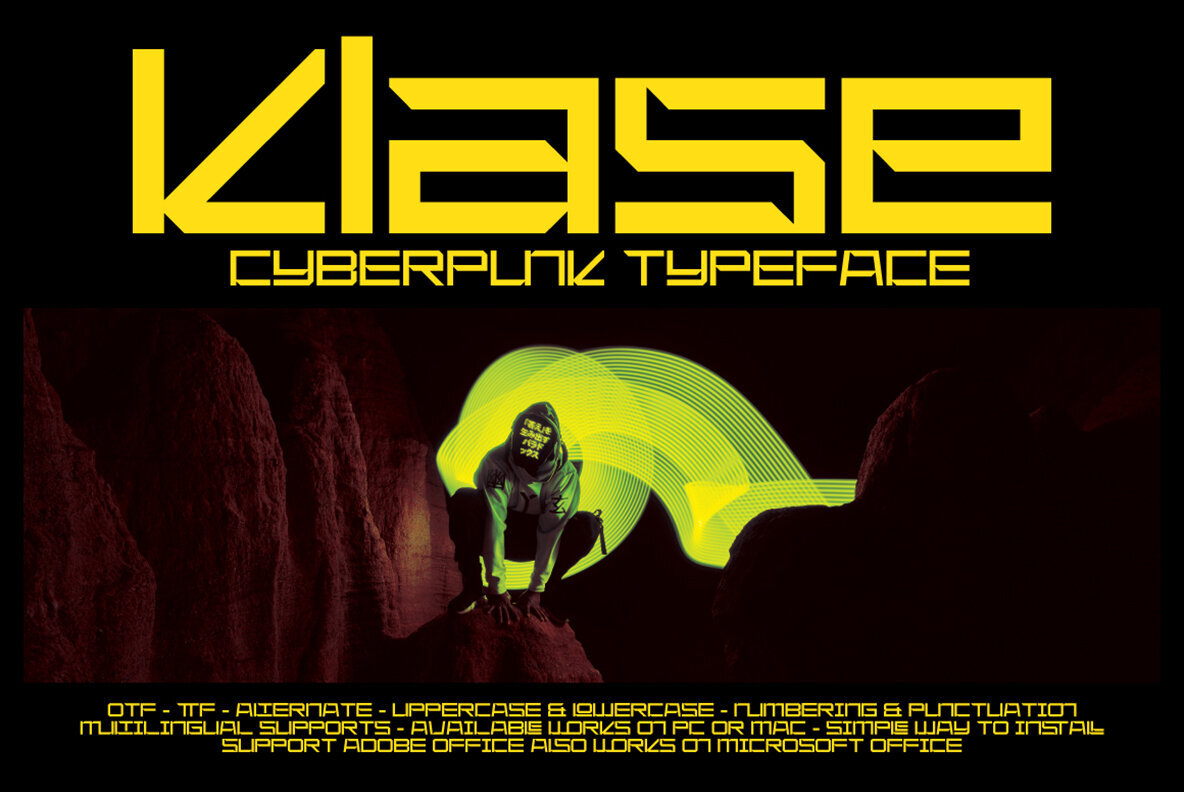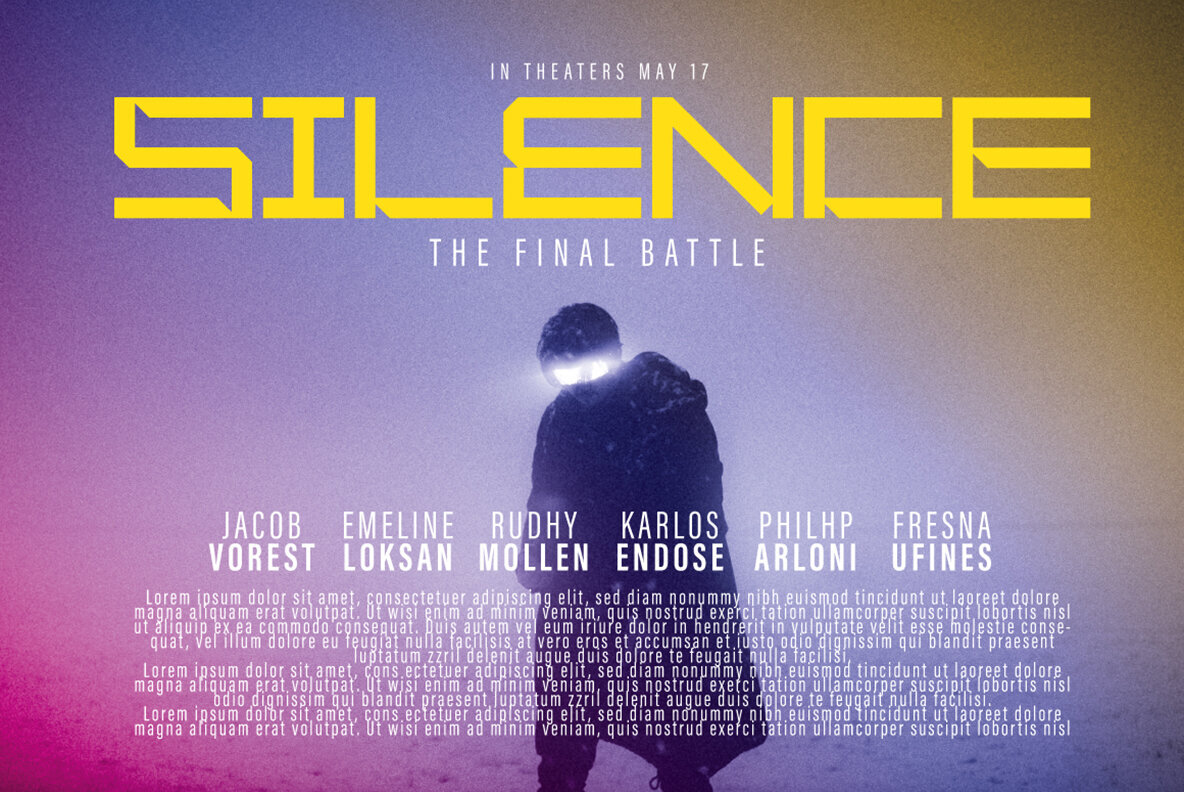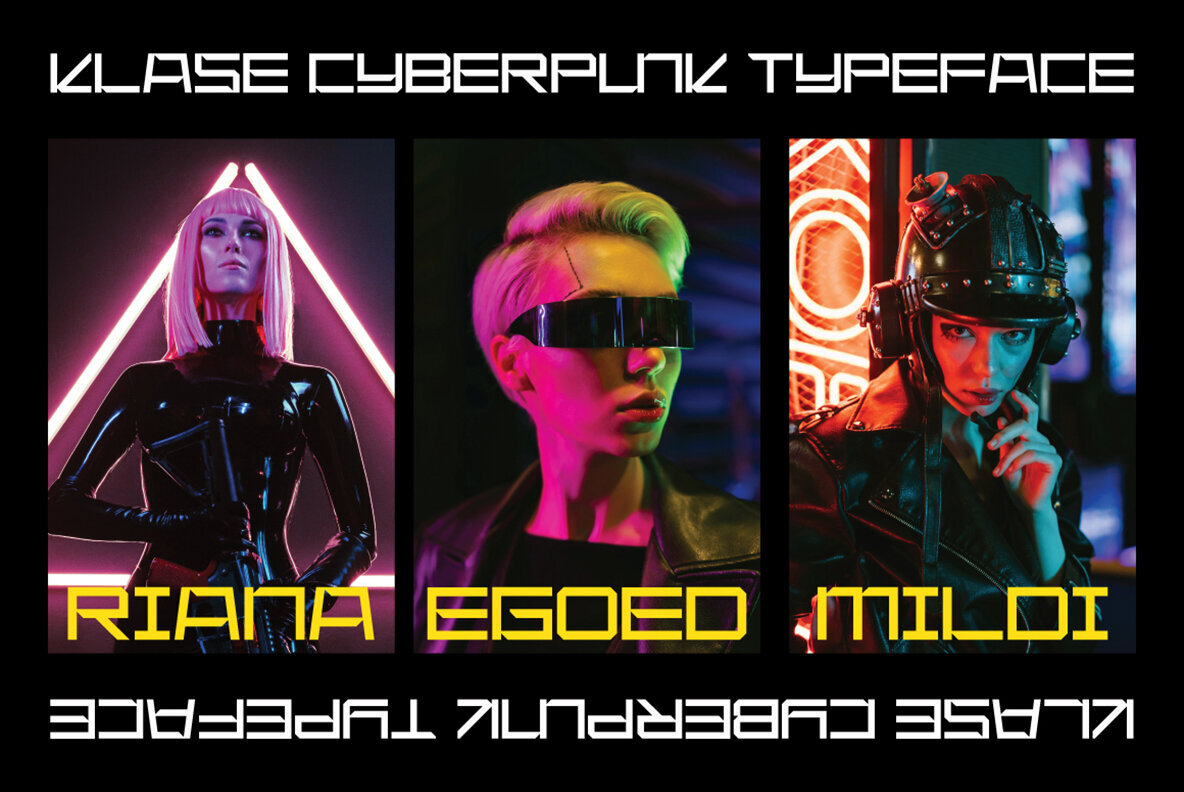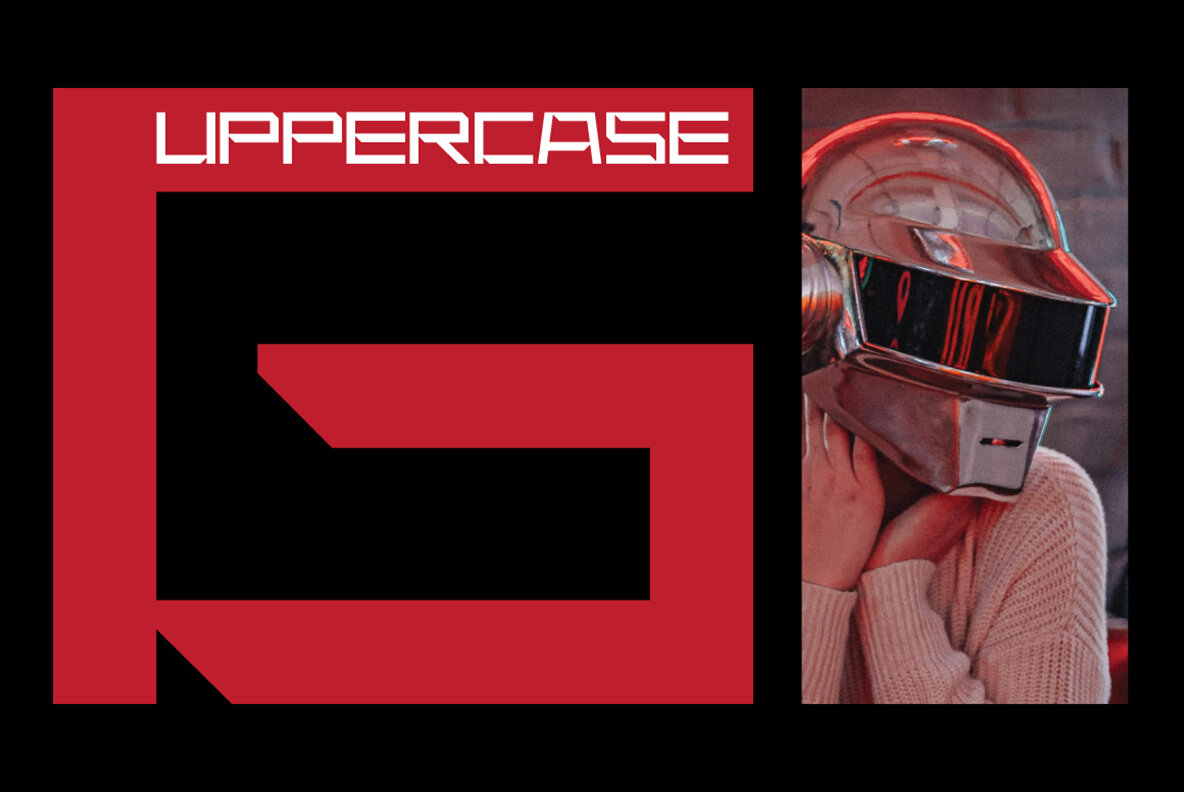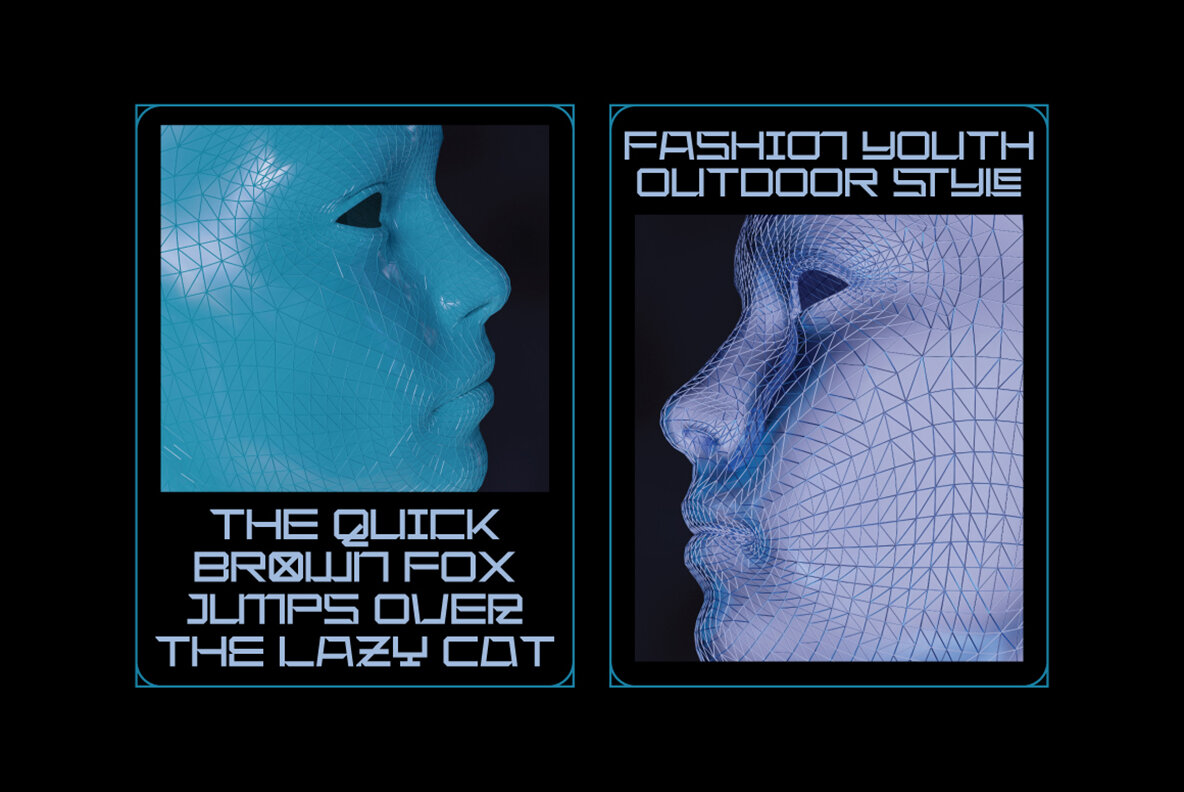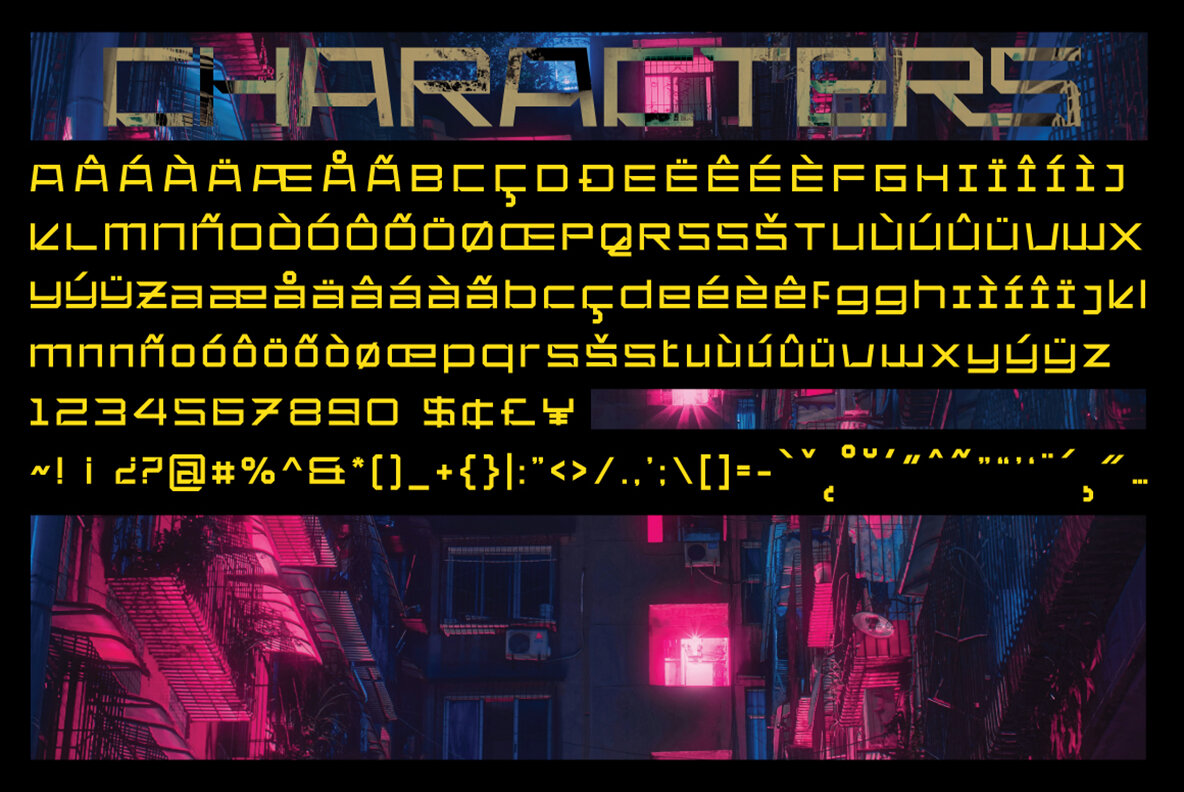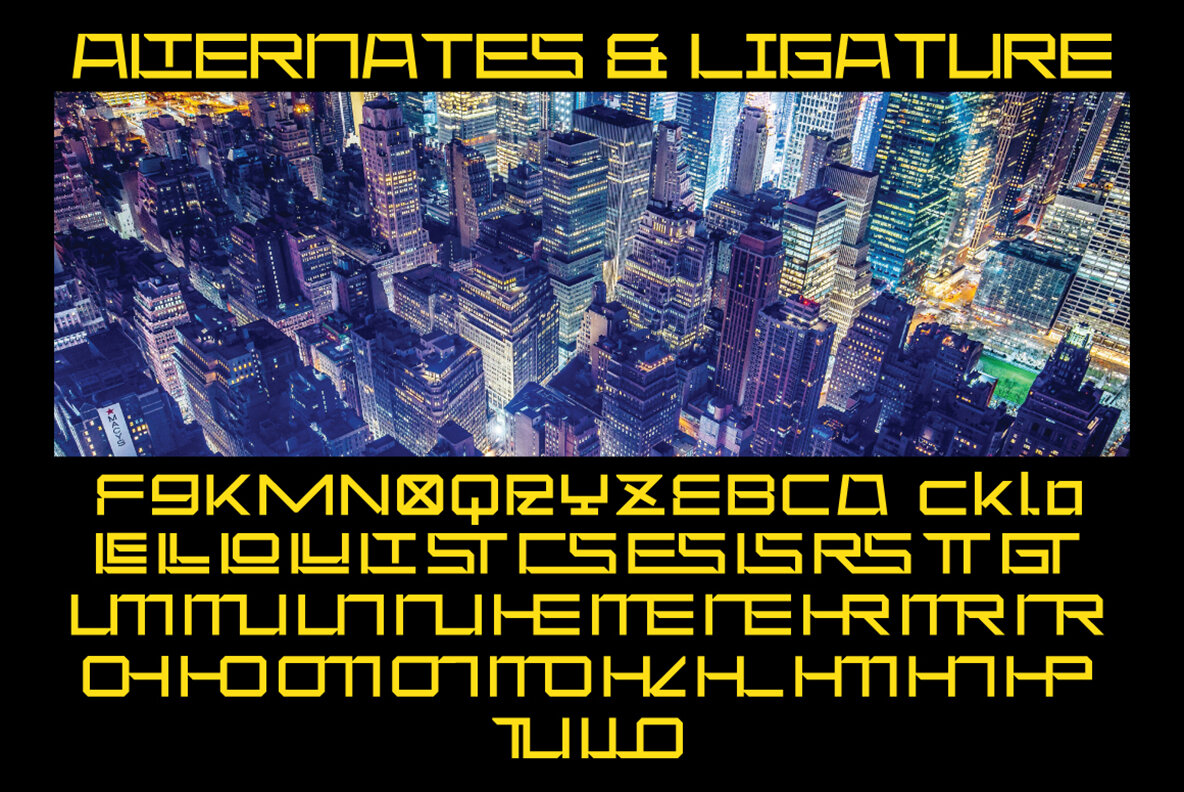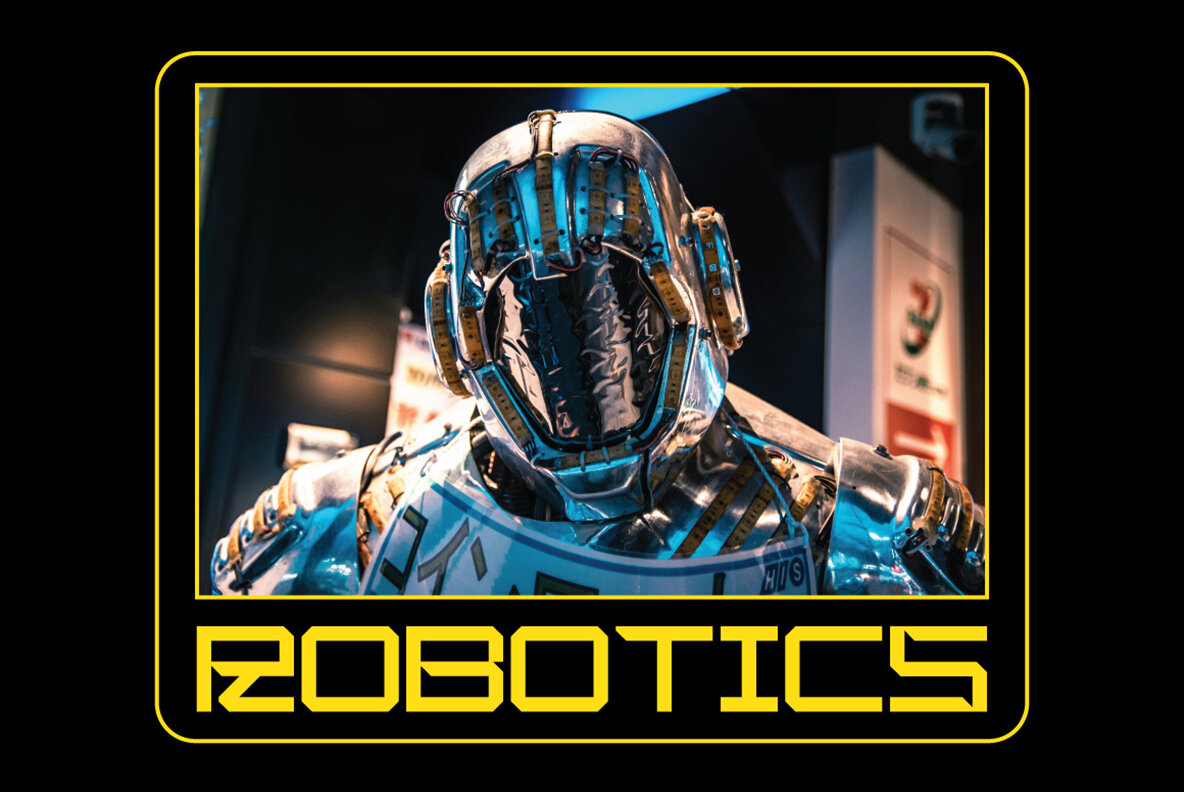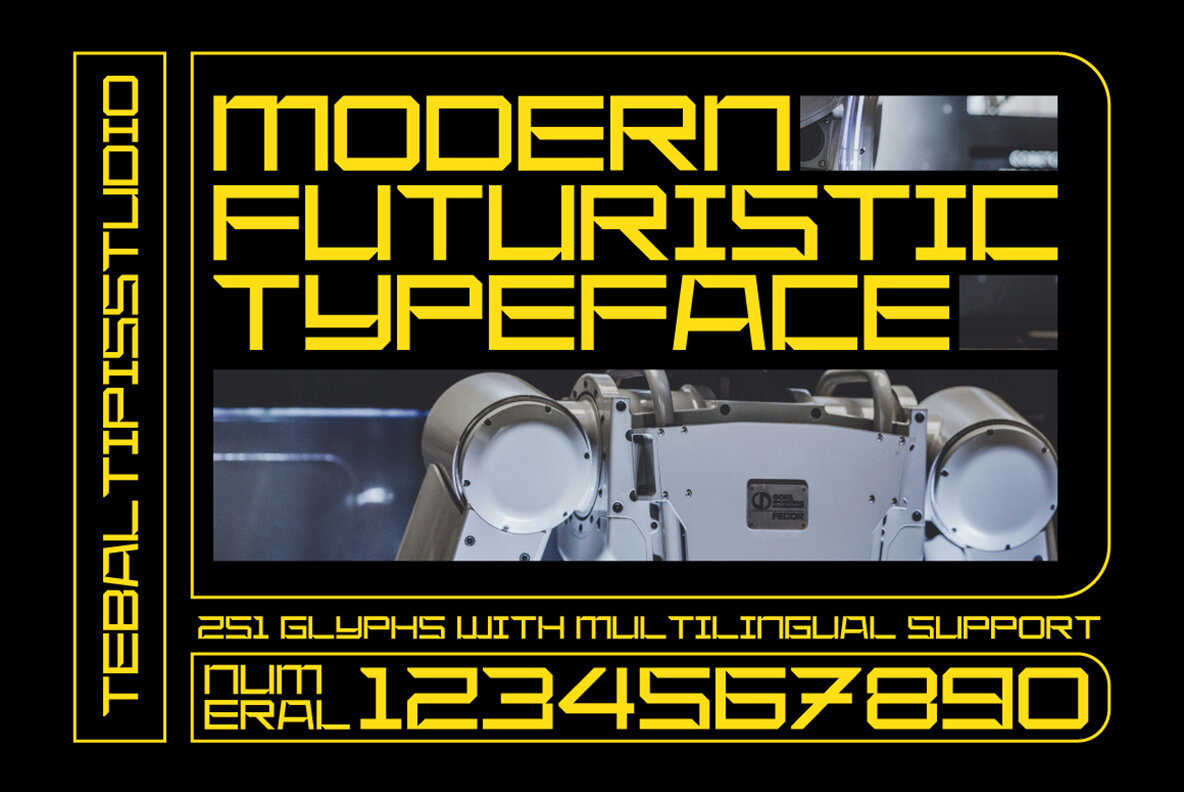
Klase Cyberpunk Font
Klase Cyberpunk Regular
Klase Cyberpunk Font brings a distinctive handmade design infused with a cyberpunk aesthetic, complete with decorative characters and a dynamic, dancing baseline. With over 250 glyphs, this font provides an array of creative possibilities for digital designers. The font's alternative characters are expertly divided into various features such as Swash, Stylistic Sets, Stylistic Alternates, and ligatures, making it versatile for different design projects.